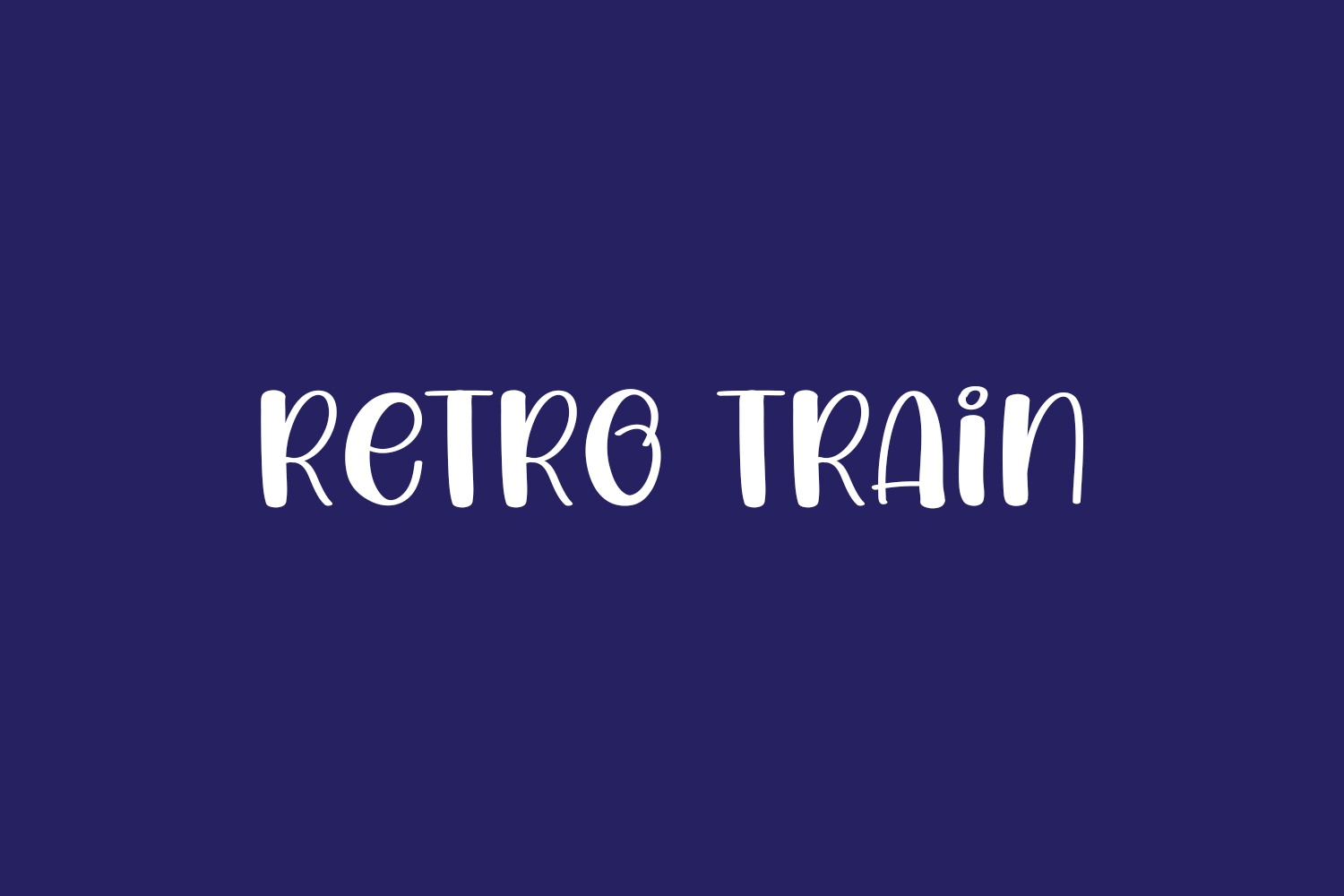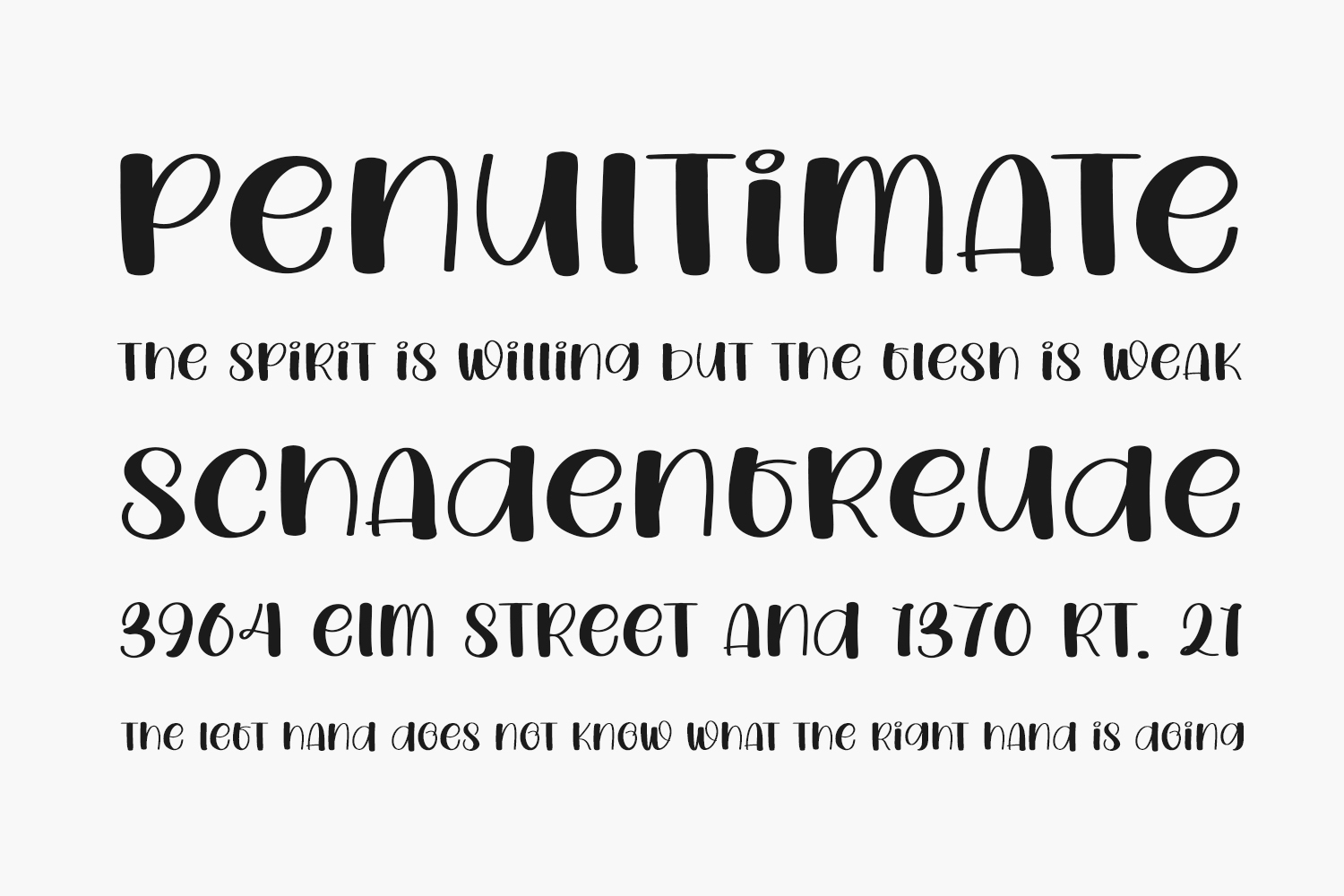
Retro Train is a stylish calligraphy-inspired script font designed by Creatype Designer to bring vintage charm and modern clarity to your creative projects. With its elegant strokes, refined flourishes, and crisp detailing, this free decorative typeface works perfectly for crafting sophisticated logos, wedding invitations, letterheads, and elegant signage. Available in OTF format — demo version includes full Latin glyph support and is free for personal use.
Why Choose Retro Train?
- Vintage-Inspired Style: Combines classic calligraphic strokes with modern minimalism for a timeless yet fresh appearance.
- Ideal for Stationery & Invitations: Perfect for elegant lettering, formal headers, or refined brand identities.
Where to Use Retro Train?
Retro Train shines across a variety of creative applications:
- Logos & Branding: Adds sophistication to luxury brands, fashion labels, or boutique shop identities.
- Wedding Invitations: Perfect for RSVP cards, formal stationery sets, and bridal name typography.
- Social Media Graphics: Creates elegant text overlays for Instagram Stories, Pinterest pins, or TikTok videos.
- Packaging Design: Brings class to product labels on candles, perfumes, or handmade goods.
- Editorial Headers: Stands out in magazine covers, blog headers, and advertising campaigns with a human touch.
Design Tips with Retro Train